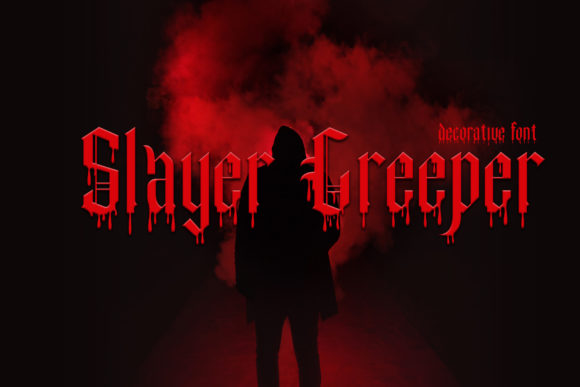
Welcome to the world of Slayer Creeper Font, a blackletter font that bleeds character and audacity. Created by the ingenious minds at Gumacreative, Slayer Creeper is not just a font; it's a statement. It's a bold declaration of creativity and a fearless embrace of the dark and mysterious.
Picture this: a Halloween party invitation adorned with Slayer Creeper's menacing elegance. The letters, dripping with blood, seem to whisper tales of haunted houses and eerie graveyards. The font's dark charm adds a touch of intrigue and suspense, inviting recipients on a thrilling journey into the unknown.
Or, envision a metal band's album cover, where Slayer Creeper's sharp edges and gothic aura perfectly capture the raw energy of rock music. The font's bold strokes and intricate details evoke a sense of power and rebellion, making it the ultimate choice for bands looking to make a statement.
But Slayer Creeper's versatility extends far beyond the realm of Halloween and heavy metal. It's a font that thrives in the world of horror, adding an unsettling atmosphere to ghost stories, haunted house tours, and dark fantasy novels. Slayer Creeper's ability to transform ordinary words into chilling messages makes it a favorite among horror enthusiasts seeking to create an unforgettable experience.
If you're a graphic designer seeking to add a touch of darkness and intrigue to your projects, Slayer Creeper is your weapon of choice. Its unique blackletter style instantly grabs attention, making it perfect for posters, flyers, and social media graphics that demand impact.
So, whether you're crafting Halloween invitations, metal band logos, horror novel covers, or any project that demands a bold and captivating presence, Slayer Creeper Font is your secret weapon. Unleash its dark charm and watch as your creations come alive with an aura of mystery and intrigue.